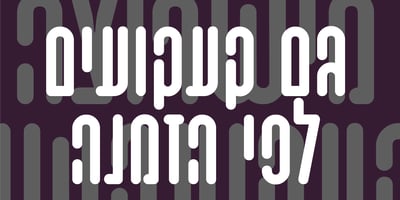
Roni89 MF
Roni89 MF font
Roni89 MF Font Family was designed by Eddi Goldfein and published by Masterfont. Roni89 MF contains 1 styles and family package options. Highly legible single condensed stroked font with the robust look. Use for titles, signage, captions etc.